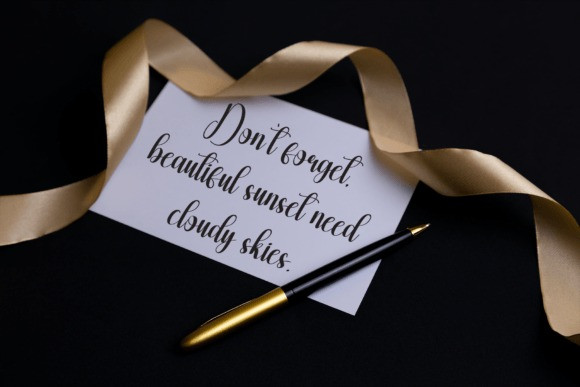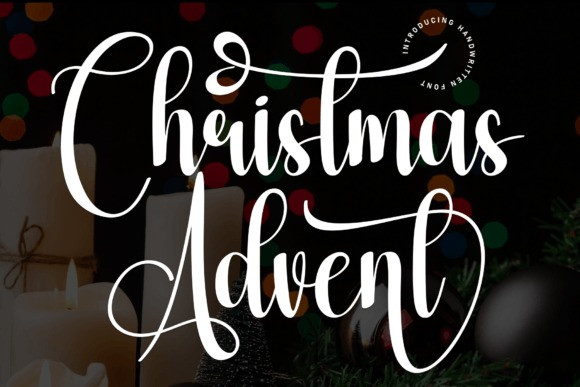
Christmas Advent Font
Christmas Advent Font, a delightful handwritten font adorned with adorable swashes. This charming typeface brings a touch of whimsy to your holiday projects, perfect for adding a sprinkle of joy to greeting cards, invitations, and seasonal designs. With its cute swashes, Christmas Advent captures the essence of the season, making it an ideal choice for spreading holiday cheer in a playful and festive manner.